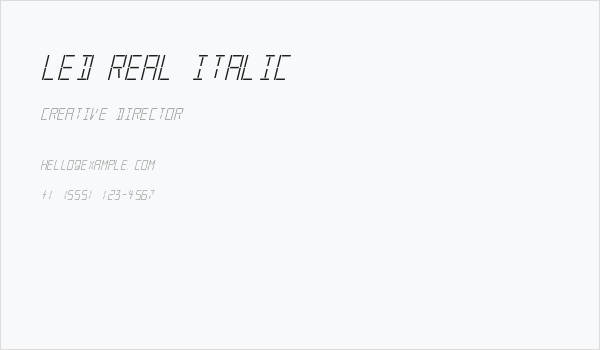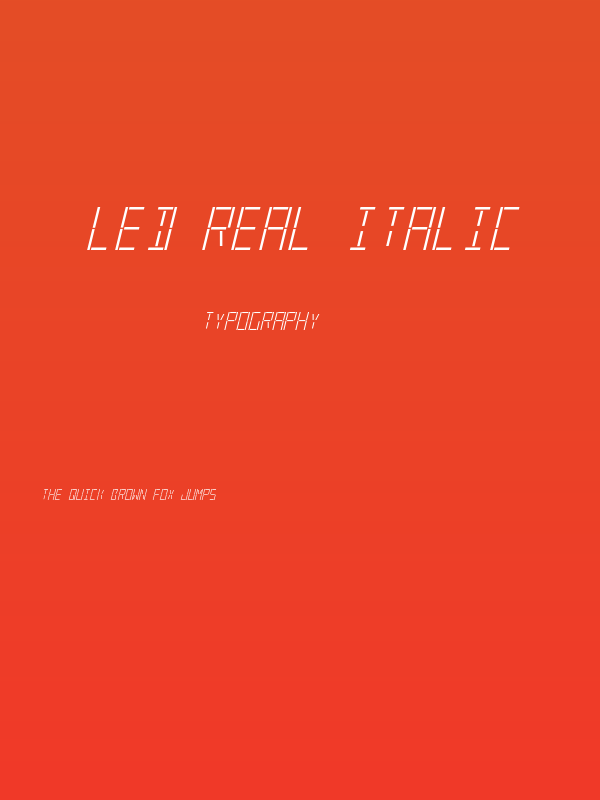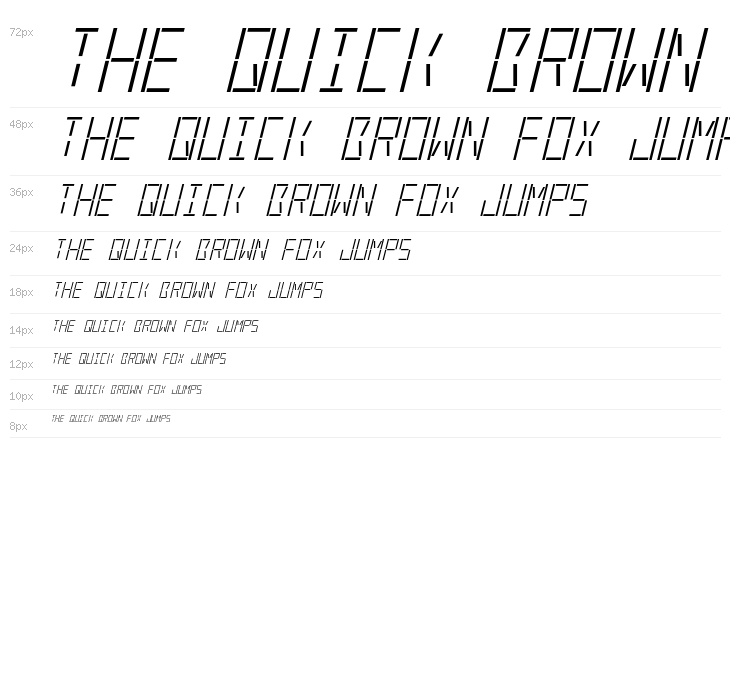
LED Real Italic Font
LED Real Italic Description
This font features a distinct, angular design reminiscent of LED displays. Each character is constructed with straight lines and sharp angles, giving it a futuristic and digital appearance. The italic style adds a dynamic slant to the characters, enhancing the sense of motion and modernity. The font maintains a consistent stroke width throughout, which contributes to its uniform and structured look. The spacing between characters is relatively tight, ensuring compactness and readability in digital formats. This style is particularly effective in conveying a high-tech or digital theme.
| Proposed Projects | Ideal for digital interfaces, tech-themed branding, electronic product packaging, and futuristic event posters. |